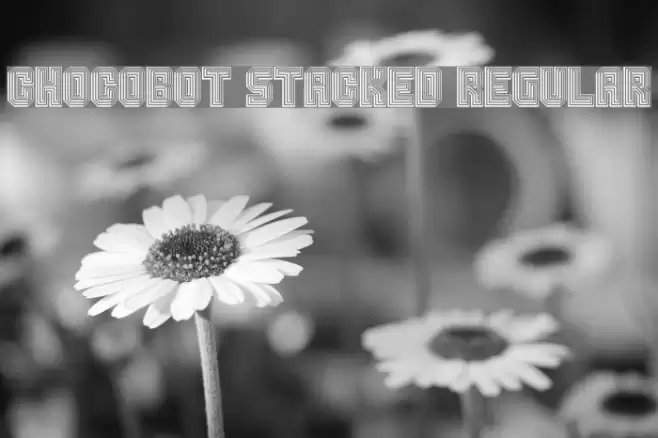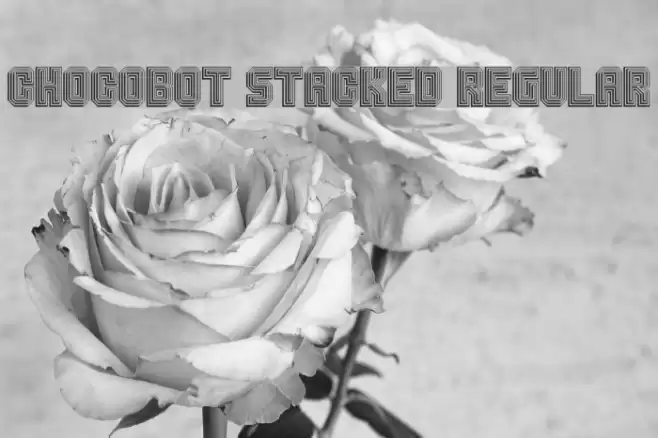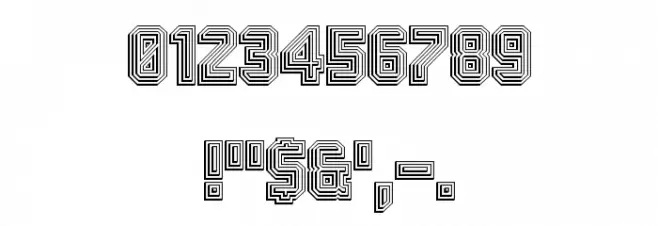
Chocobot Stacked Regular Font
Chocobot Stacked Regular Description
This font features a bold, geometric design with a stacked, layered appearance that creates a three-dimensional effect. The characters are constructed with multiple parallel lines, giving them a sense of depth and complexity. The overall style is modern and futuristic, making it suitable for eye-catching designs. The uppercase and lowercase letters maintain a consistent style, with sharp angles and clean lines. The numerals and special characters are designed to match the bold and structured aesthetic of the alphabet, ensuring a cohesive look across all text elements.
A bold, geometric font with a stacked, three-dimensional appearance from Uncategorized fonts.
- Proposed Projects: Ideal for futuristic branding, posters, video game titles, and tech-related designs.